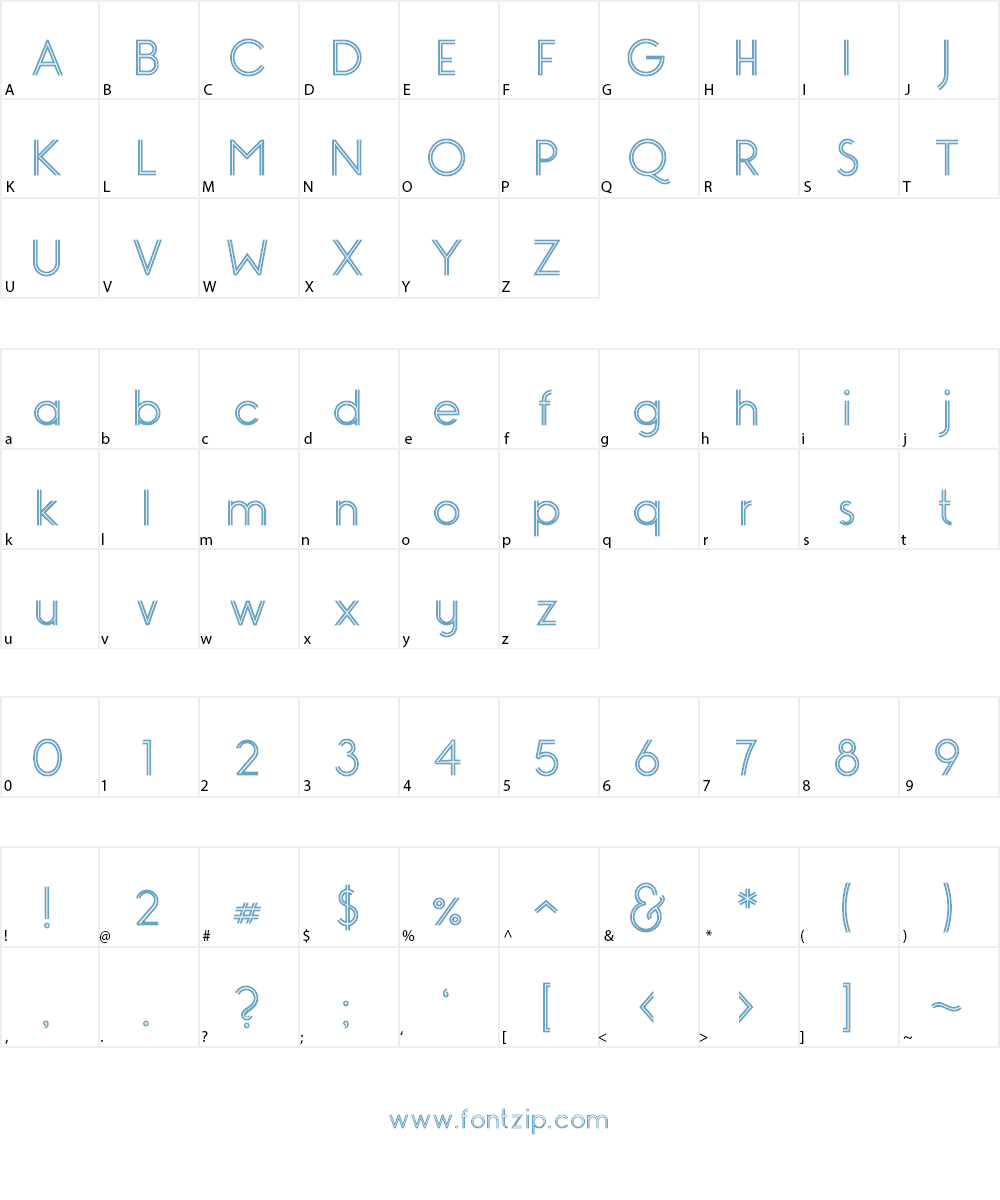
Monopoly is a modern, simple and clean monolinear sans-serif. It has a complete western character set and comes in 3 styles: Light, Bold and Bold Inline giving it the versatility and unique look needed for your design project.